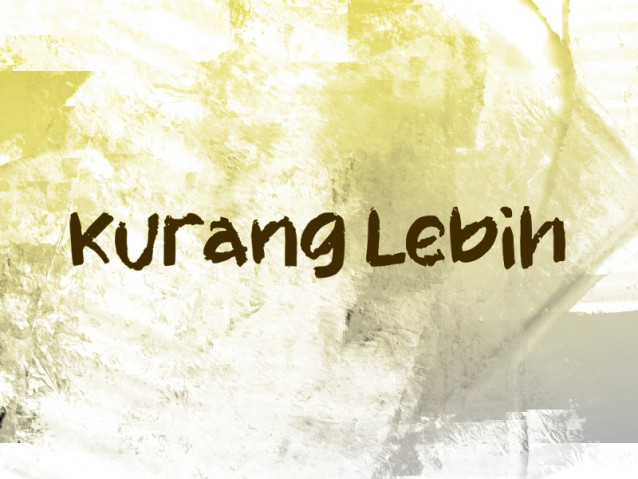
Kurang Lebih Font
Kurang Lebih Font is a simple and modern display font suitable for quotes, logos, headings, titles, and many more. Use it on any of your creative projects, and your designs will become outstanding!